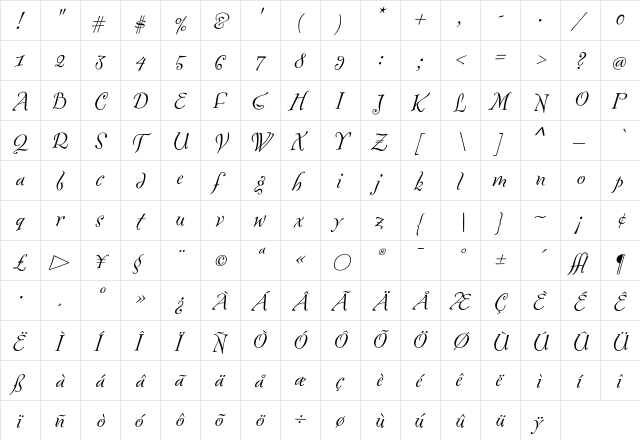
Fontesque-Italic Regular
Design Context for Fontesque-Italic Typeface
Fontesque-Italic is a composed and adaptable typeface that performs quietly and consistently across a wide range of design contexts. The dynamic lean of this cut emphasises speed and emphasis in any layout.
Pro Tip: Use Fontesque-Italic for emphasis, pull quotes, and subheadings where its slanted energy can add rhythm to the layout.